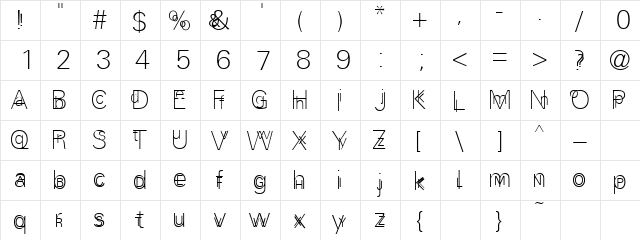
EfParasite Regular
Design Context for EfParasite Typeface
EfParasite is a composed and adaptable typeface that performs quietly and consistently across a wide range of design contexts.